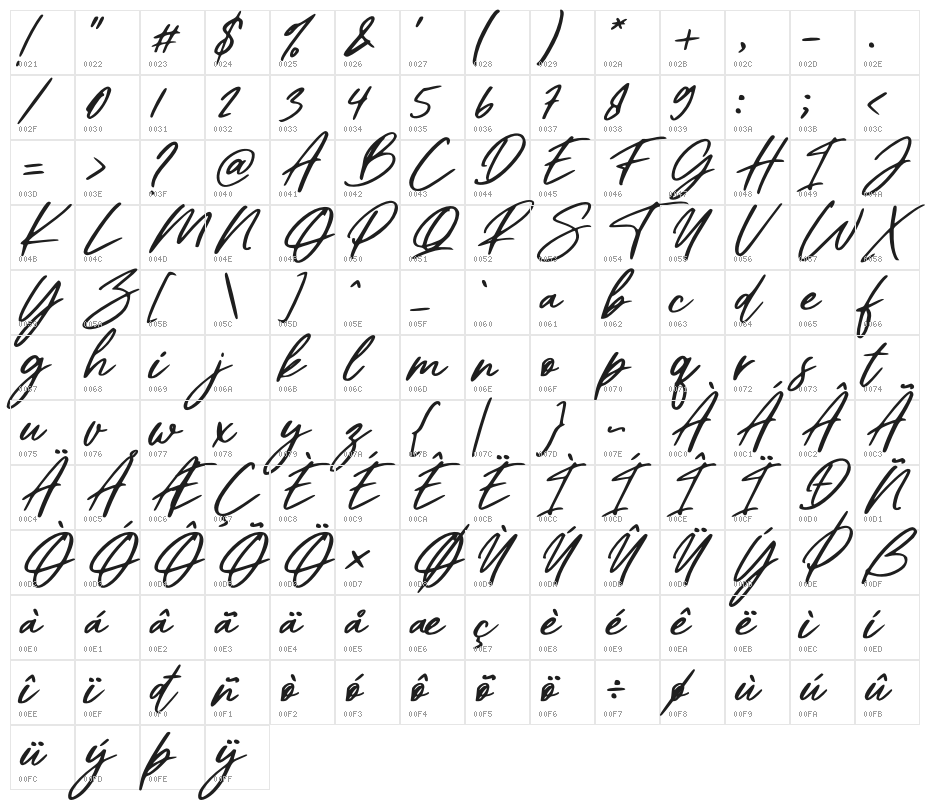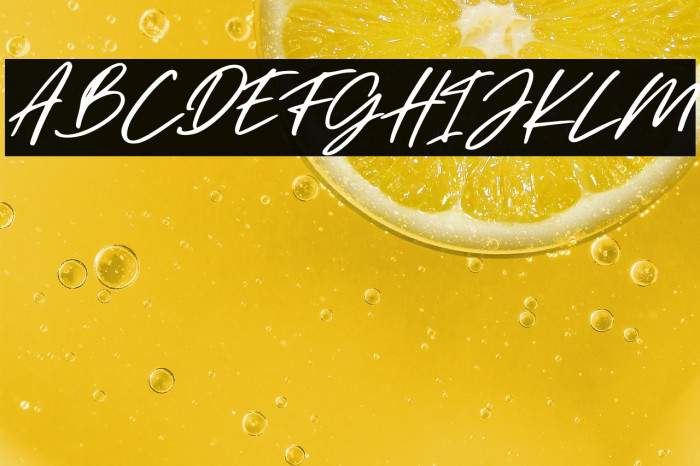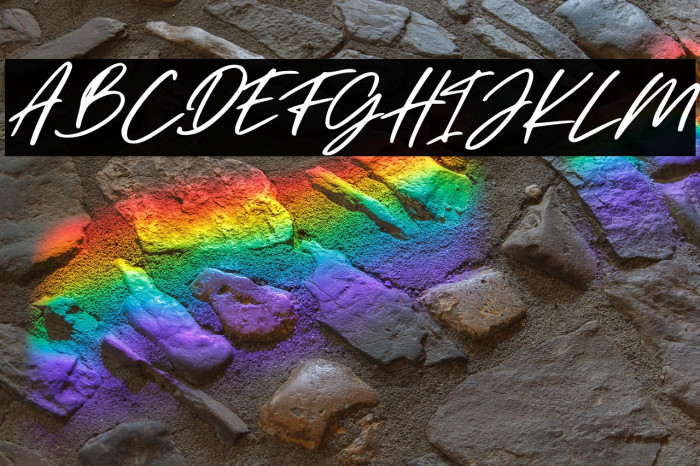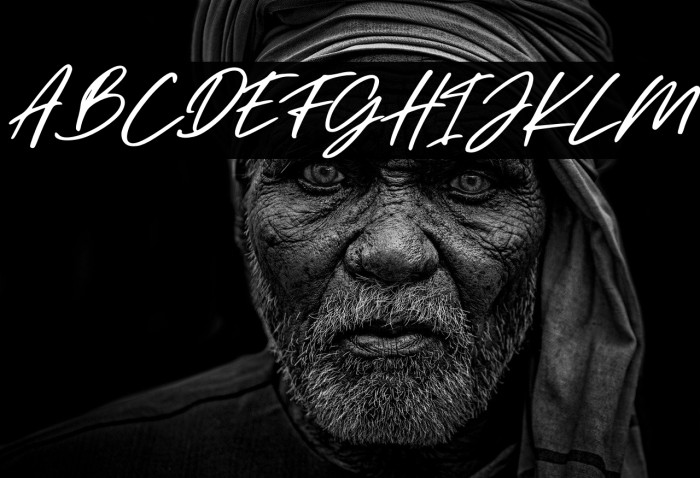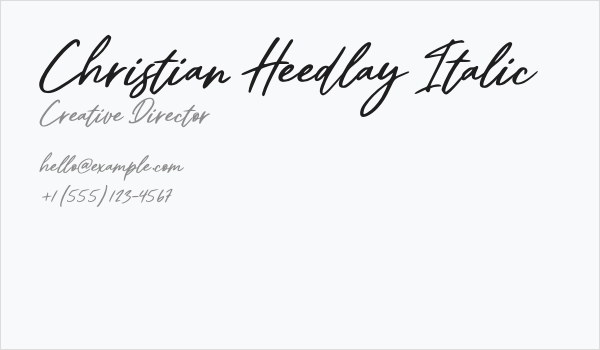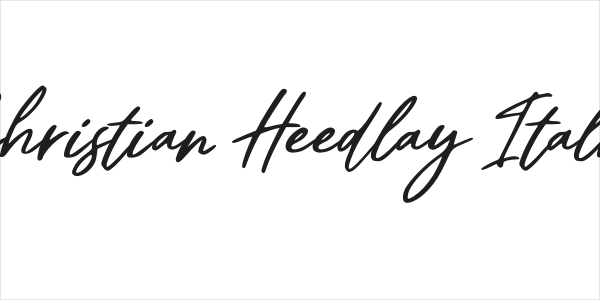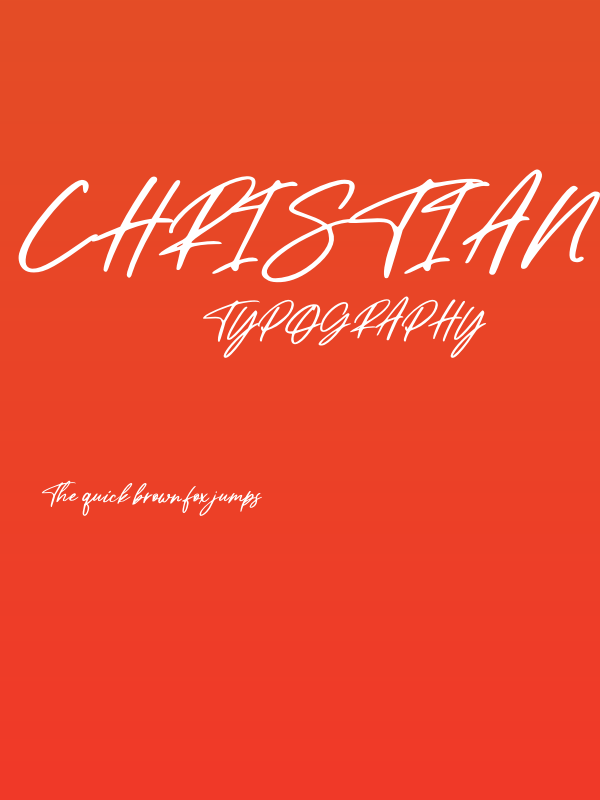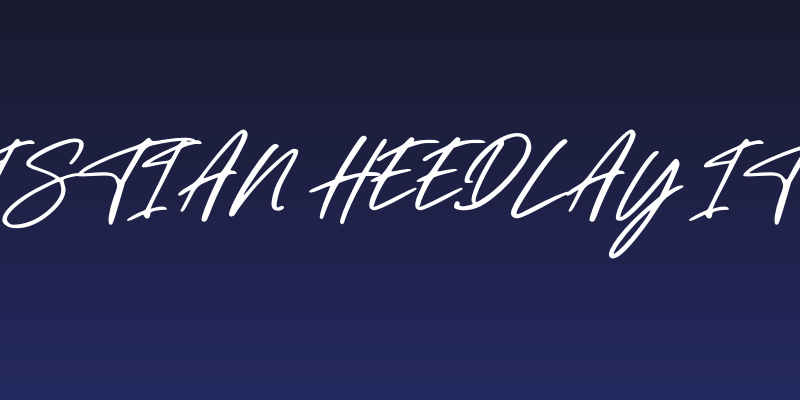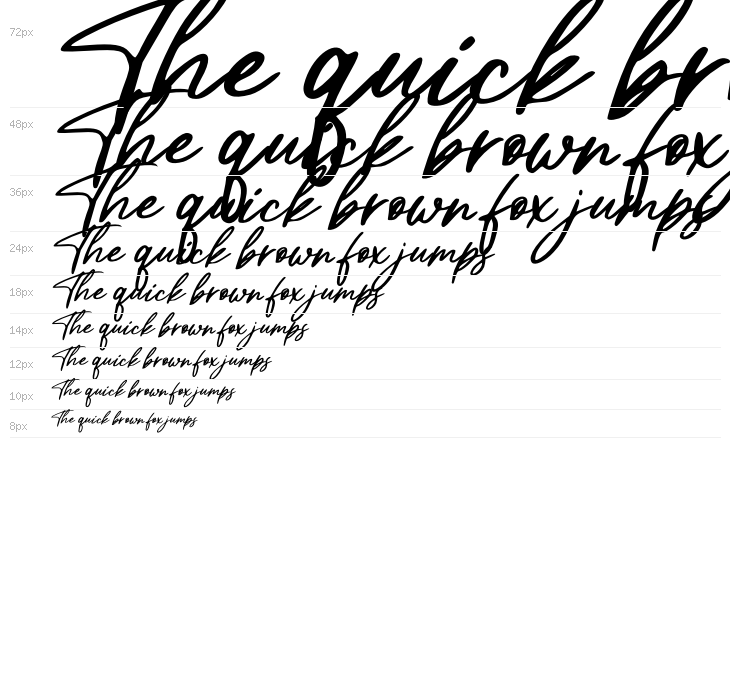
Christian Heedlay Italic Font
Christian Heedlay Italic Description
This font features a dynamic and fluid script style, characterized by its elegant, flowing strokes and cursive letterforms. The letters are connected, creating a seamless and continuous appearance that mimics natural handwriting. The slanted orientation adds a sense of movement and sophistication, making it ideal for creative and expressive designs. The uppercase letters are bold and prominent, while the lowercase letters maintain a consistent rhythm and balance. The numerals and special characters are crafted with the same attention to detail, ensuring a cohesive look across all elements.
| Proposed Projects | Ideal for wedding invitations, greeting cards, branding, and logo design where a personal touch is desired. |